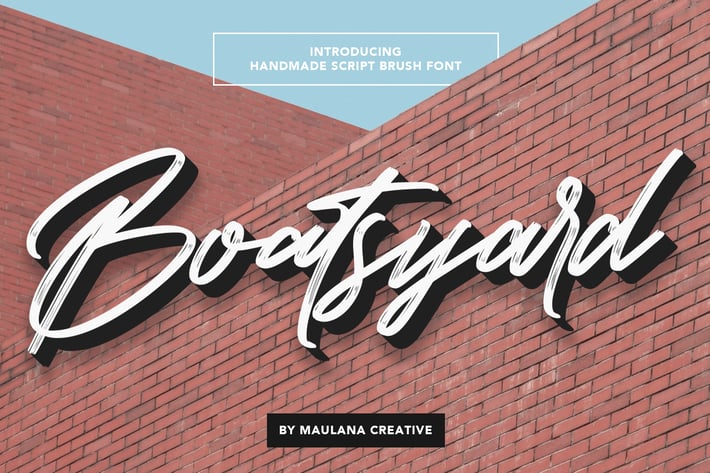
Boatsyard Handmade Script Brush Font
Give your designs an authentic handcrafted feel. Boatsyard Handmade Script Brush Font is perfectly suited to logo, stationery, branding, typography quotes, magazine or book cover, website header, clothing, branding, packaging design, restaurant and more.